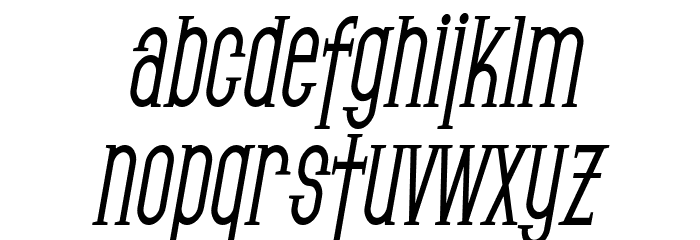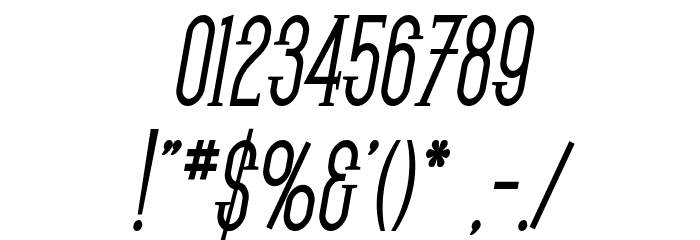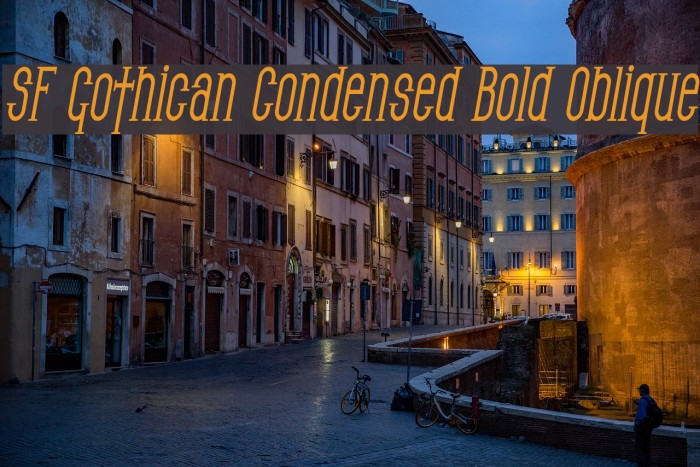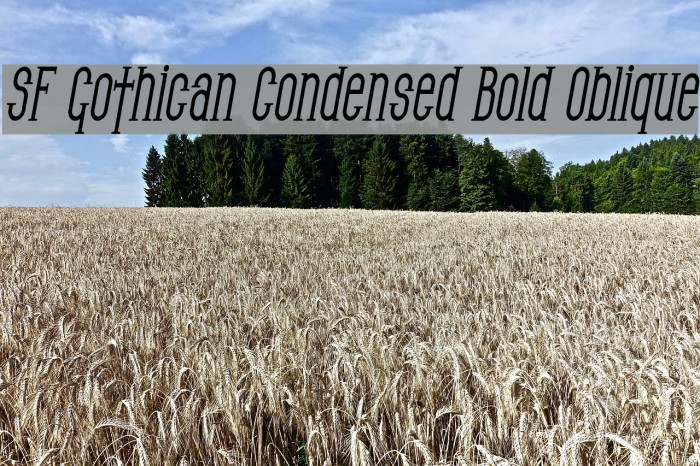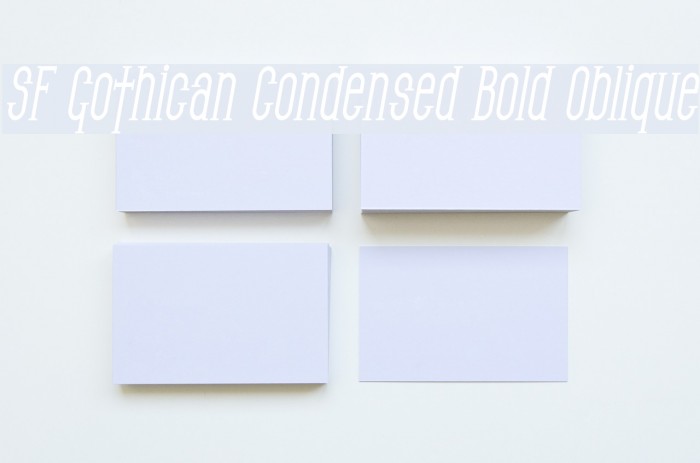
SF Gothican Condensed Bold Oblique Font
This font features a bold and condensed style with an oblique slant, giving it a dynamic and modern appearance. The uppercase and lowercase letters are designed with a consistent stroke width, providing a uniform look across the alphabet. The characters are tightly spaced, enhancing the condensed nature of the font. The numerals and special characters maintain the same bold and slanted characteristics, ensuring a cohesive appearance throughout. This font's strong presence and distinct style make it suitable for impactful designs.
Bold, condensed, and oblique font with a modern and dynamic style.
- Proposed Projects: Ideal for headlines, posters, branding materials, and any design requiring a strong visual impact.
- Character Spacing: Tight